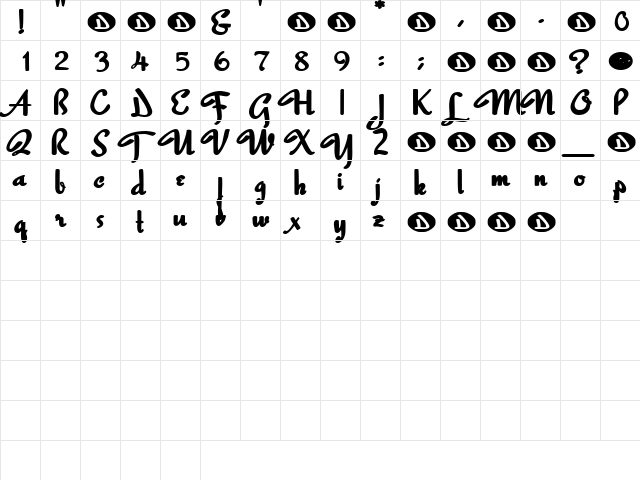
WitchyKitchen Regular
Design Context for WitchyKitchen Typeface
WitchyKitchen is a composed and adaptable typeface that performs quietly and consistently across a wide range of design contexts.
Pro Tip: Use WitchyKitchen in both headline and body roles to test its range before committing to a single application.